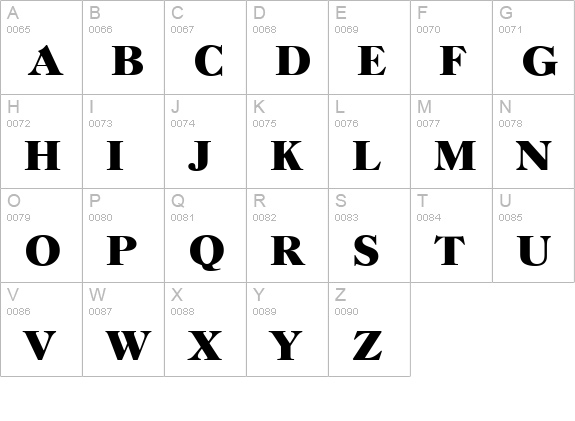
HorshamSerial-Xbold-Regular is the standard, neutral variant in the HorshamSerial typeface family \xE2\x80\x94 well suited to general body text, paragraphs, and standard typographic work.
HorshamSerial-Xbold-Regular is a modern and elegant font that exudes sophistication and style. With its bold and sharp design, this font is perfect for making a statement in any creative project. Whether you are designing a logo, poster, or branding materials, HorshamSerial-Xbold-Regular will surely capture attention and leave a lasting impression. The best part? HorshamSerial-Xbold-Regular is available for free download at FontsMarket.com. This means you can easily access this high-quality font without any cost, making it a valuable addition to your font collection. Don't miss out on the opportunity to elevate your designs with HorshamSerial-Xbold-Regular - download it today and unleash your creativity!